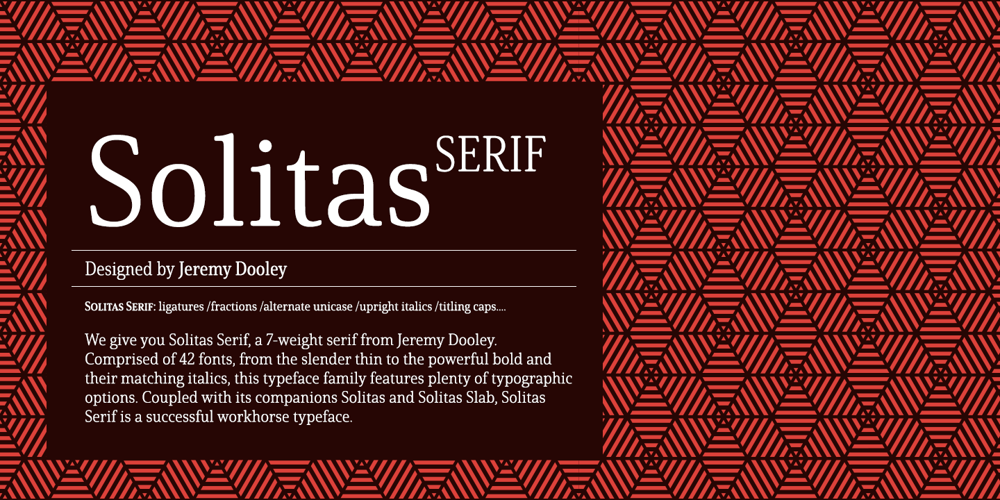
Solitas Serif Font Family was designed by Jeremy Dooley and published by insigne. Solitas Serif contains 42 styles and family package options. Say it softer with Solitas Serif. Perfect for the designer needing a serif without the stiffness, Solitas Serif will turn your reader’s eye with its slight serifs and rounded corners. This softer version of the curves found in Solitas and Solitas Slab gives your work a subtle yet noticeable charm. Solitas Serif’s 42 rich fonts live comfortably in print and on packaging as well as online. With its soft, pleasant appeal, your reader can move over the typeface with ease. Intermediate weights are available for long amounts of text, and the bold version makes a strong but gentle stance in headlines and subheadings. Altogether, Solitas Serif remains an unimposing and graceful font, despite its large selection of seven weights, three widths, and italic sets. Solitas Serif’s OpenType options include capitals, ligatures, ordinal numbers, fractions, denominators, superscripts and subscripts. Serif also supports Western European, Central European and Eastern European languages. For a sweet approach, charm your reader with simple and soft. Charm them with the subtle Solitas Serif.